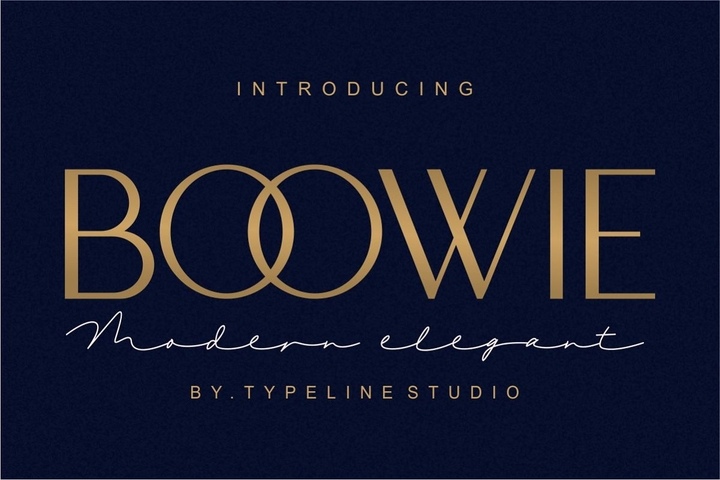
Boowie || Modern minimalist elegant.
Boowie || Modern minimalist elegant. Font is perfect for contemporary luxury brands, sophisticated design studios, minimalist architecture firms, high-end fashion labels, premium lifestyle magazines, and refined corporate identity systems. Its refined character makes it ideal for modern art galleries, luxury real estate companies, upscale interior design services, premium wellness centers, sophisticated tech startups, and any project requiring understated sophistication with modern elegance and minimalist luxury appeal.
This font is exciting because it masterfully embodies the principles of modern minimalism while maintaining luxurious elegance and sophisticated appeal for contemporary brands seeking refined visual communication. The precisely balanced letterforms demonstrate exceptional restraint and attention to proportion, creating typography that speaks volumes through subtle refinement rather than excessive decoration, perfect for audiences who appreciate sophisticated simplicity and modern luxury.
The Boowie || Modern minimalist elegant. Font family typically includes Light, Regular, Medium, and Bold weights with refined alternates, elegant ligatures, and minimalist elements that enhance its sophisticated personality. This comprehensive collection enables luxury professionals to create distinguished brand systems that maintain modern credibility while offering flexibility for various high-end applications requiring both contemporary appeal and timeless elegance.
Whether you're developing identity systems for luxury lifestyle brands, creating materials for sophisticated design services, or designing promotional content for premium contemporary products, Boowie || Modern minimalist elegant. Font Free Download delivers the refined sophistication and modern elegance that resonates with discerning audiences seeking contemporary luxury and minimalist beauty. Its elegant presence ensures distinguished brand recognition across digital platforms and print materials, making it perfect for websites, mobile applications, and luxury campaigns that celebrate modern minimalism, sophisticated design, and the transformative power of elegant simplicity with contemporary luxury standards and authentic minimalist sophistication.